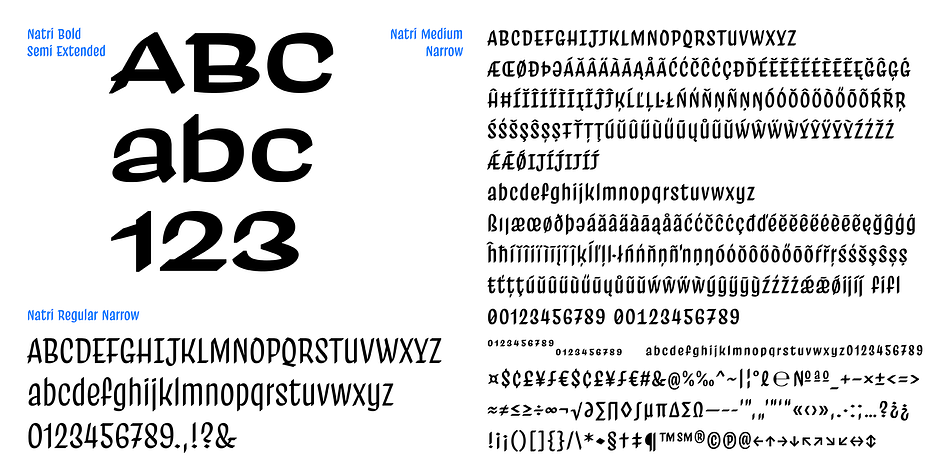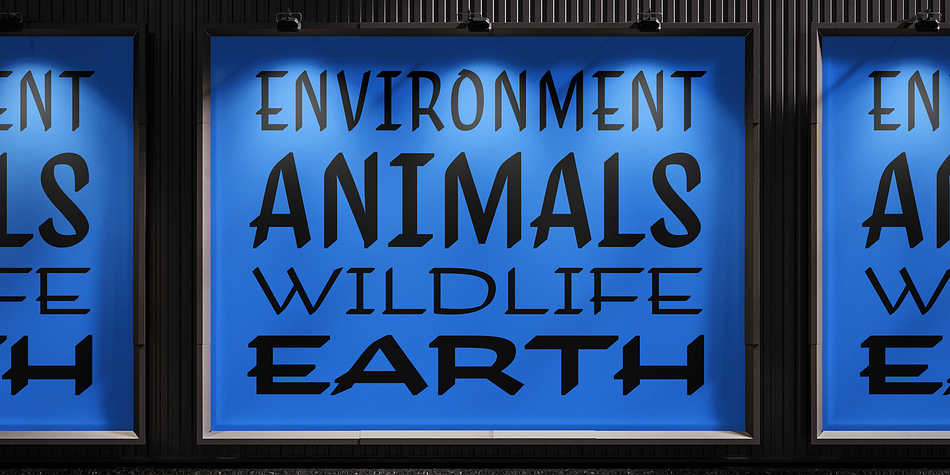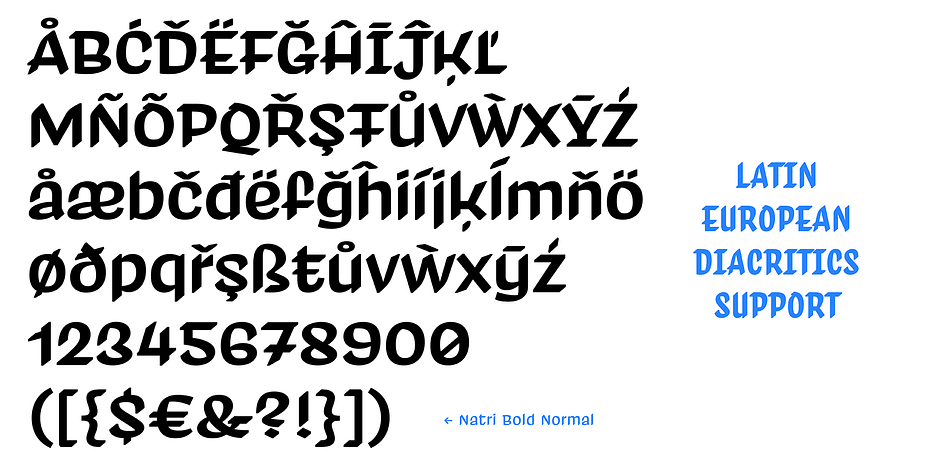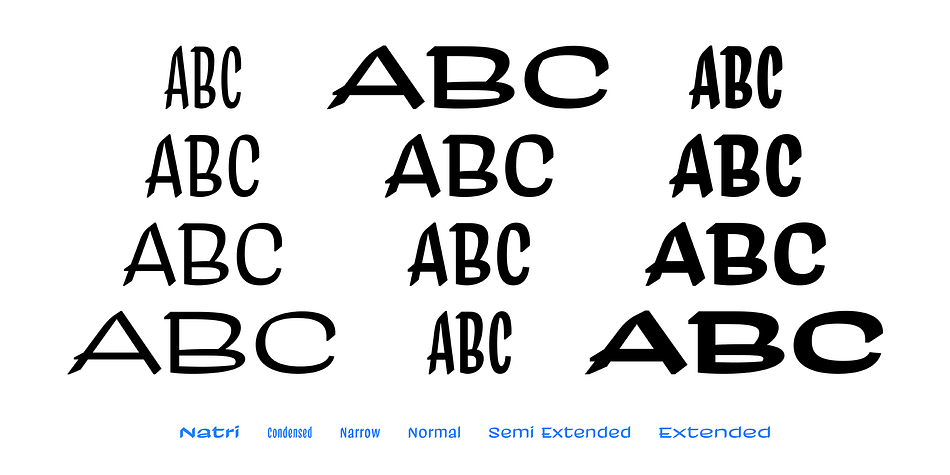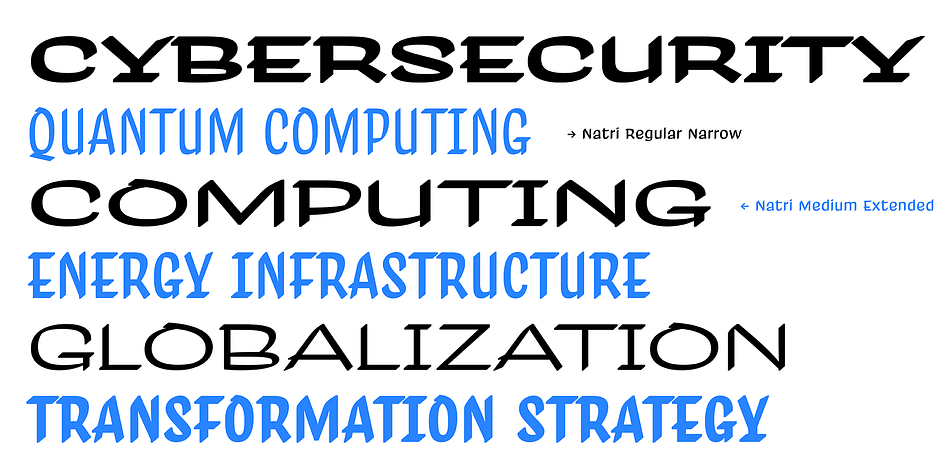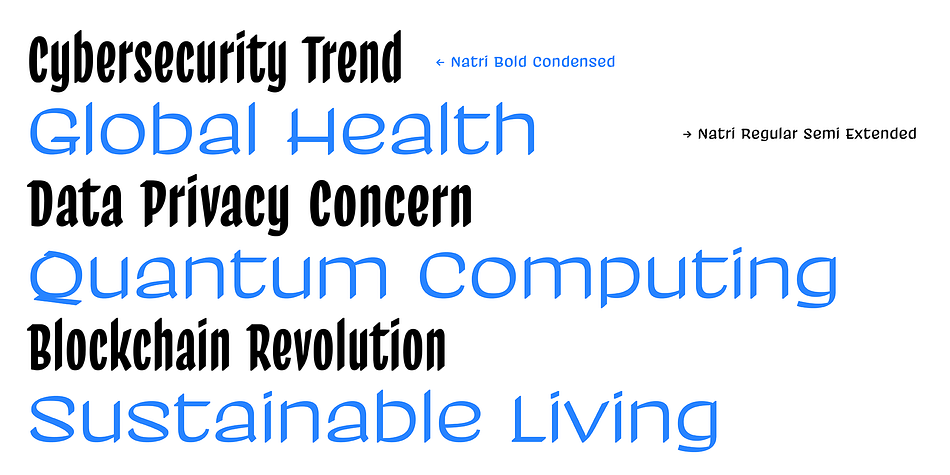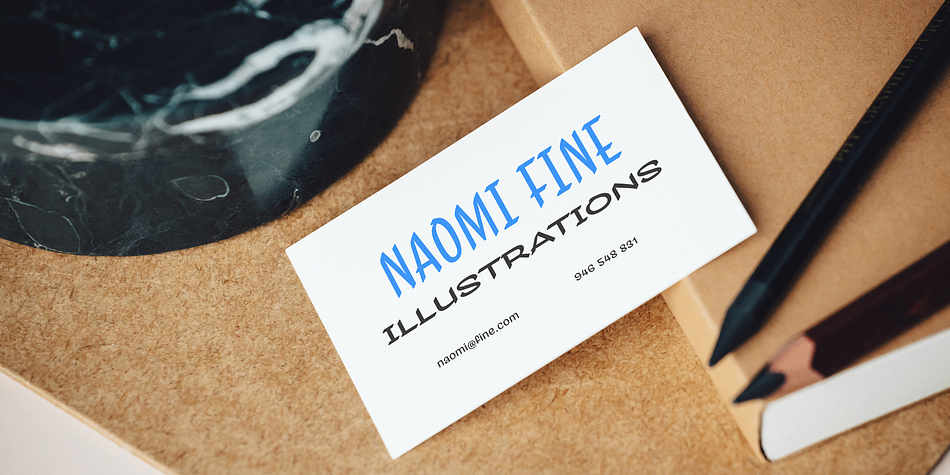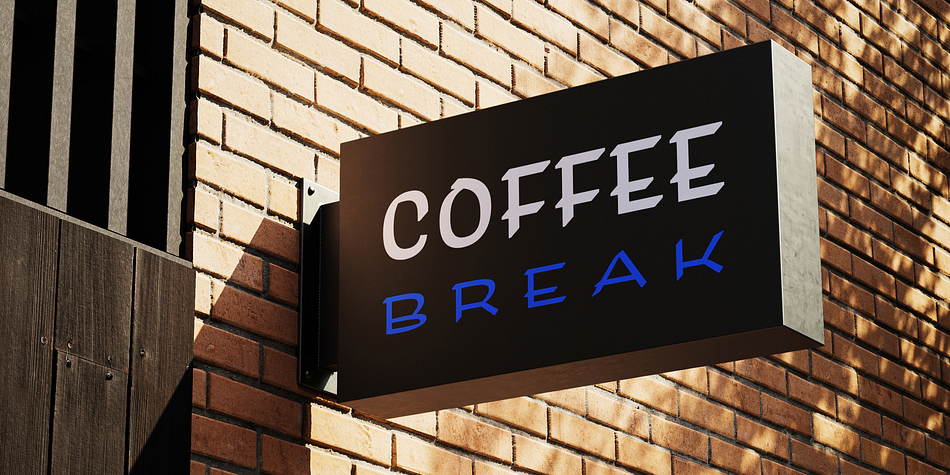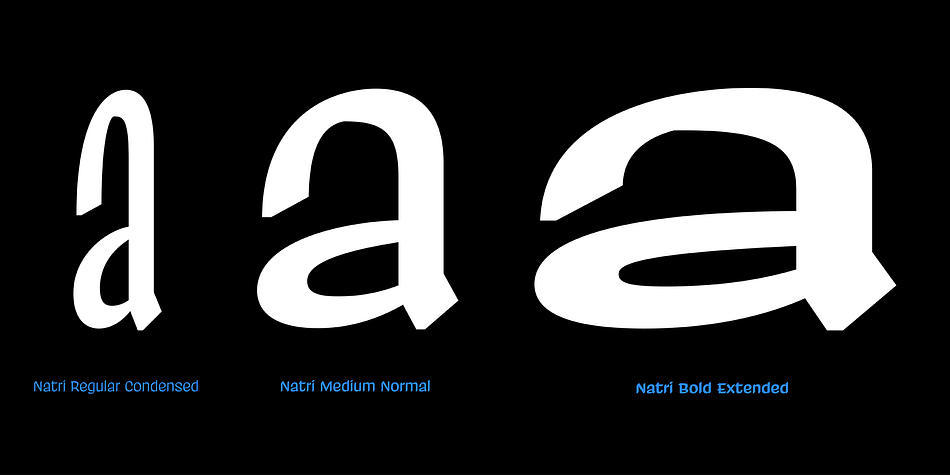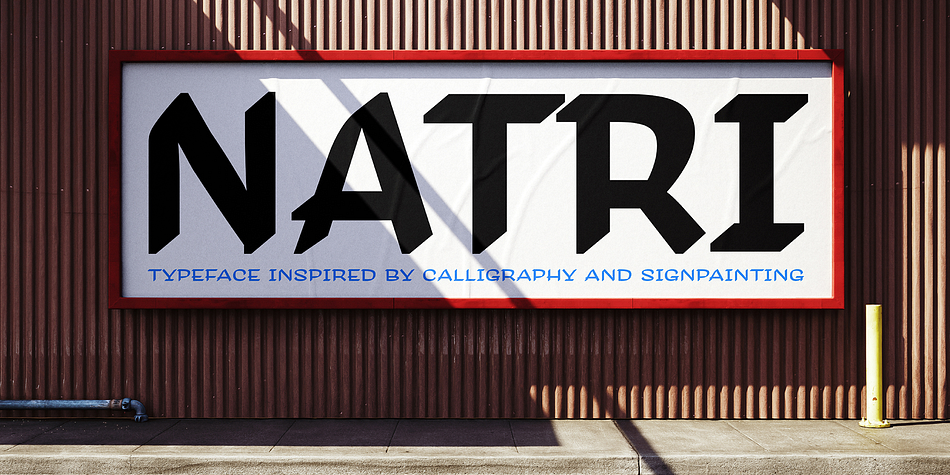
Natri
Natri is a hand drawn font family. This typeface has fifteen styles and was published by DizajnDesign.
An Architectural Typeface inspired by Calligraphy and Sign-painting
The shape of the strokes and the typeface proportions were heavily influenced by two sources: broad nib calligraphy and speed stroke caps.
There are different methods of interpreting the handwriting. In the case of Natri, instead of forcing a handmade look, it takes advantage of computer digitization. The natural stroke endings of brush lettering are replaced with strict mechanic-geometric look. In certain letter combinations, letters look like architectural objects – buildings viewed from above.
The vector drawings were tested over and over with the brush until it was possible to letter them by hand, so it could be used as a lettering model as well. The possibility of having the computer font and being able to write it by hand gives the typeface new possibilities – these two modes can be combined in projects such as corporate identity programs.
A range of widths was designed to give the typeface more flexibility when combined with sign painting and fit certain space conditions.